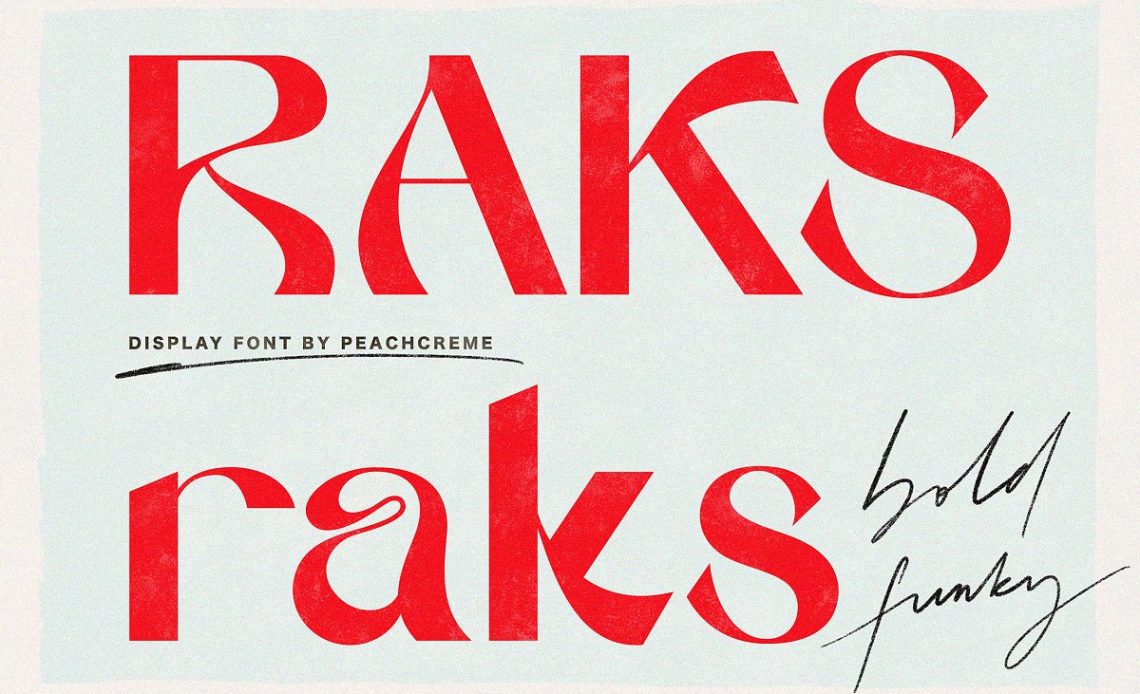
Looking for the best font for branding that will give your designs a vanguard touch? Look no further than Raks, the modern display font created by PeachCreme.
With its bold and curvy lines, Raks is perfect for making a dramatic impact on everything from magazine headers to product emblems. This eye-catching font is sure to draw attention and make your designs stand out.
Raks is more than just a pretty face, though. It's also highly versatile and can be used for a wide range of design applications. Whether you're creating a logo, designing a website, or working on a print project, Raks is the font that will help you achieve your goals.
But the real reason to choose Raks is that it simply looks amazing. Its elegant and sophisticated design will elevate any design project and help you create something truly special. And with the included otf, ttf, woff, and woff2 files, you'll have everything you need to get started right away.